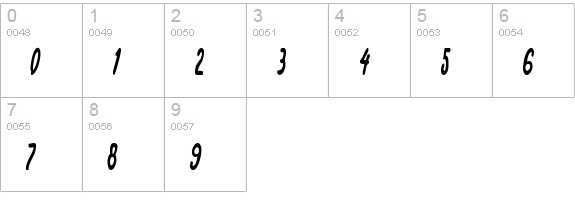
International Super Hero Cond is a distinctive, condensed-width variant in the International typeface family \xE2\x80\x94 well suited to design and typography projects.
The International Super Hero Cond font is a powerful and dynamic typeface that embodies the spirit of heroism and adventure. With its bold and striking design, this font is sure to captivate and inspire, making it the perfect choice for any project that requires a touch of heroism. Whether you're designing a comic book cover, creating branding for a superhero-themed event, or simply want to add a dose of excitement to your designs, International Super Hero Cond font is here to save the day. Its condensed form adds an extra level of sleekness and versatility, making it suitable for both headline and body text. But what sets this font apart is not just its incredible design, but also its accessibility. The International Super Hero Cond font is available for free download at FontsMarket.com, allowing designers and enthusiasts alike to unleash their creativity without any limitations. This means that you can bring your superhero-themed projects to life without having to worry about any additional costs. So, why wait? Embrace the power of International Super Hero Cond font and let your designs soar to new heights. Download it for free today at FontsMarket.com and embark on a heroic journey of design excellence.